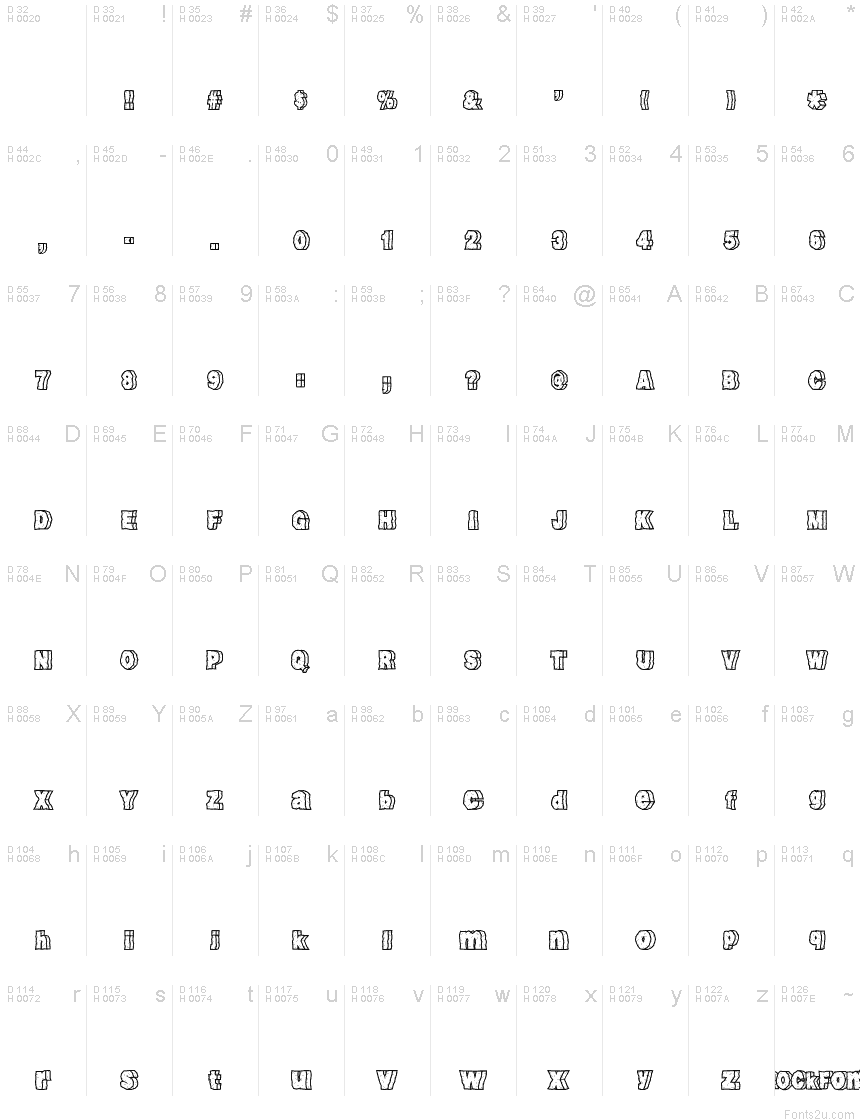
RockFont
RockFont, by J.F.Y. Daniel Gauthier of GautFonts, is a free cartoon 3D display font that turns the letters into chunky carved stone. The caps feel like comic-book boulders - blunt, cracked, and slightly irregular - with beveled edges and little fracture marks that keep the rocky theme running through the whole font.
It fits naturally in game logos, kids' adventure posters, comic covers, themed party graphics, and title cards where a free font with a playful geology vibe can do the heavy lifting. Because the letters read like split rock blocks rather than polished metal or slick neon, it also works well for short headlines and monograms that need a rough, animated punch.